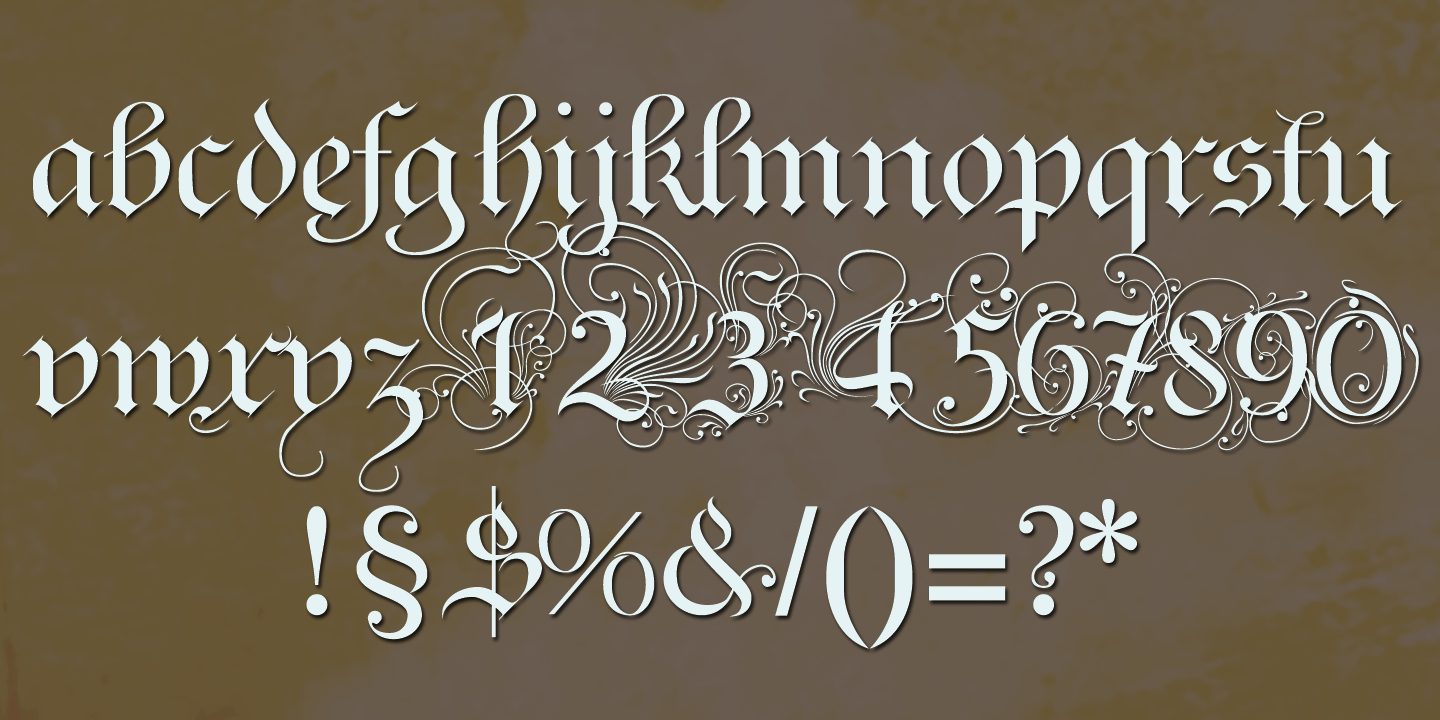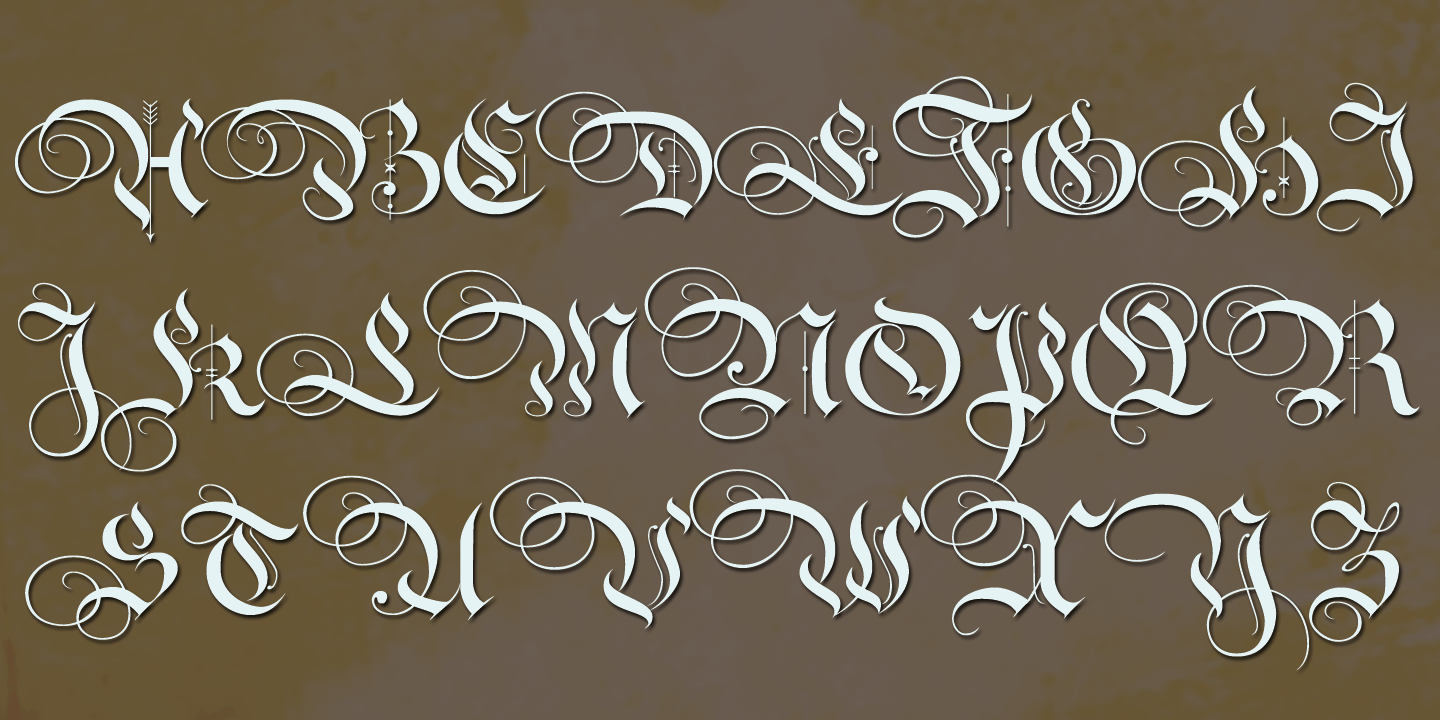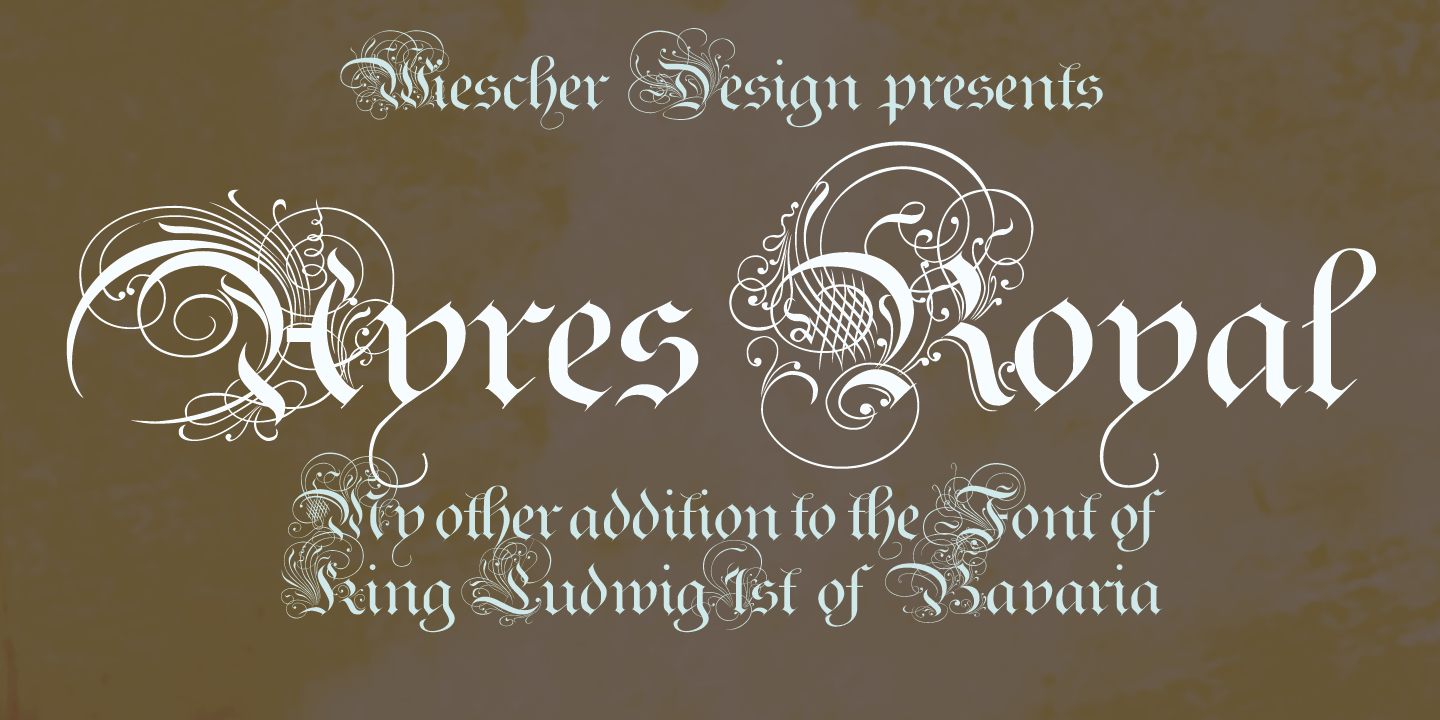
Ayres Royal
Font Family by Wiescher Design
I designed Ayres Royal to honour London's famous calligrapher John Ayres (about 1700). He designed calligraphy examples called The Accomplished Clerk, that were meant to be for the office clerk.
I doubt if there were many clerks in those times, that were able to write such beautiful letters.
In order for the font to be of any use, I adjusted my Royal Bavarian Script to go together with the initials of John Ayres. The two fonts have to be used together, that's why I am not selling them as singles.
It would be bad style to use the font with the initials only. In some languages, such as German, there are too many capital words and the many heavily-decorated initials would make longer texts very hard to read.